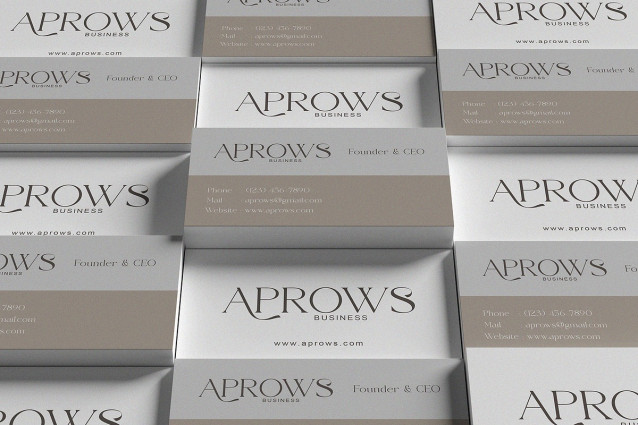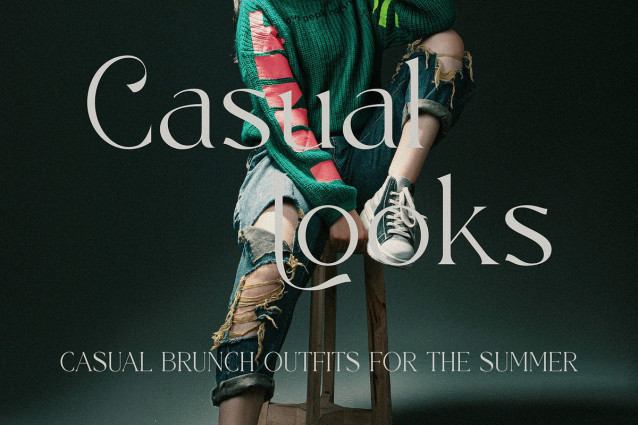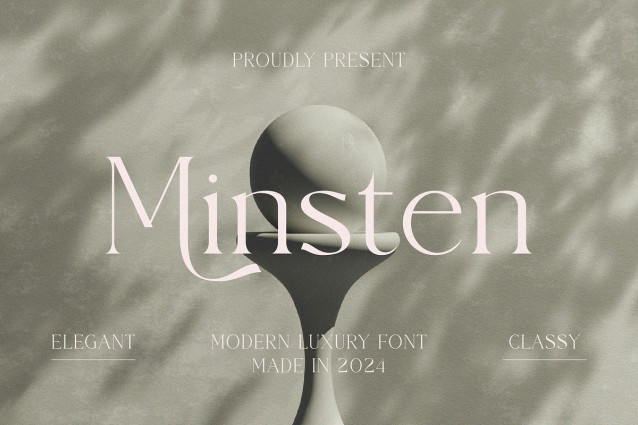
Minsten Font
Minsten Font An elegant, beautiful and modern serif typeface. With its modern and minimalist appearance, Minsten brings a luxurious, classy and clean style to your projects such as websites, modern logos, branding identities, social media quotes, wedding stationery, magazines and various other needs!
Minsten displays unique and classy capital letters A to Z and is equipped with unique alternative letters so that Minsten is a beautiful font that can be adapted to various projects and jobs that you want.